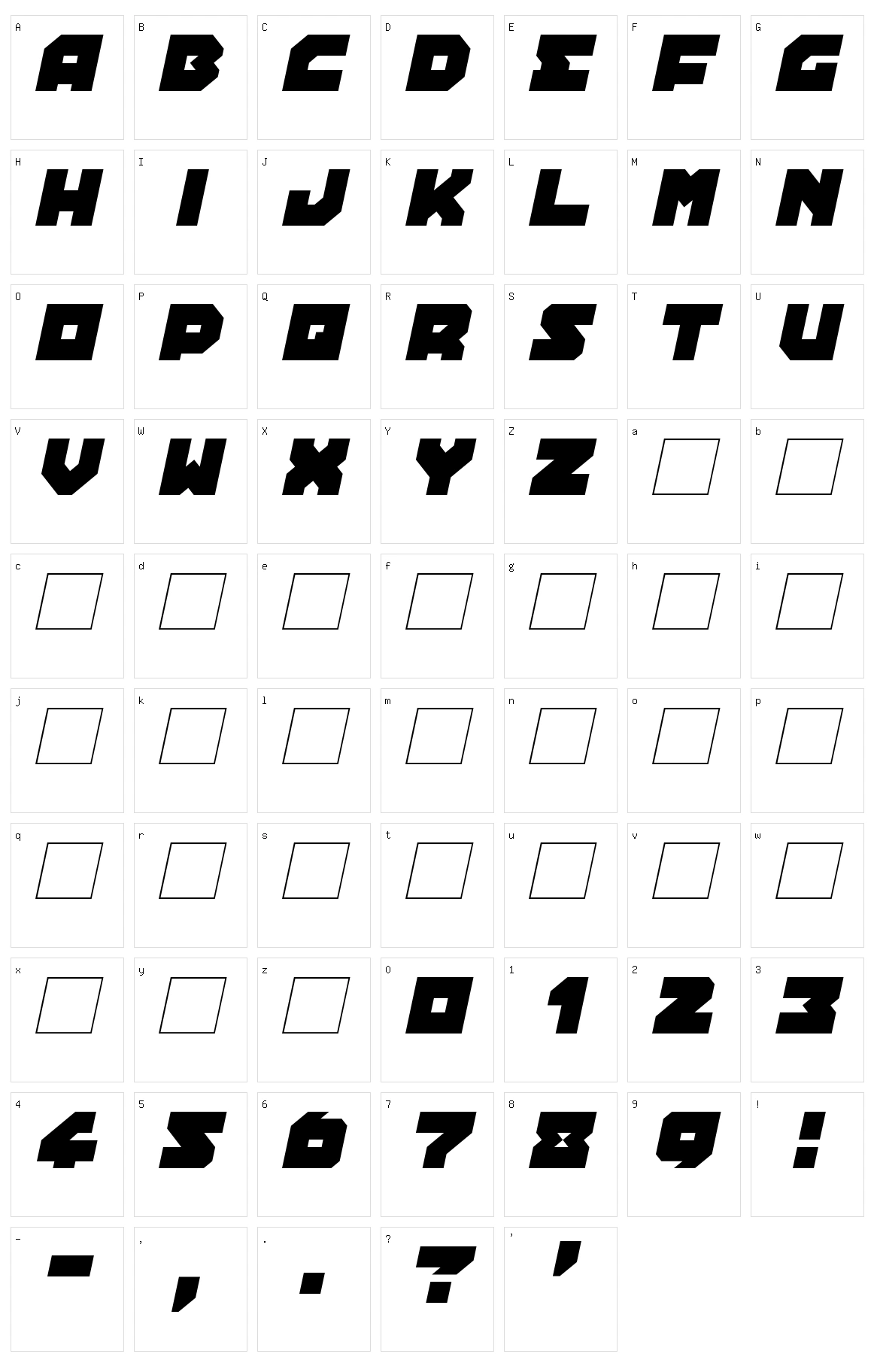
The free font Bot CraftShop is carefully designed by imagex, showcasing a thoughtful balance of creativity and usability and falls under the Square font style. When you download the ZIP file, it contains only 2.17 KB of font files, making it lightweight and quick to download. Please review the license details below to understand permitted usage and distribution rights. If license information is not available, we recommend using this font for personal projects only or contacting the author directly for commercial usage permissions.